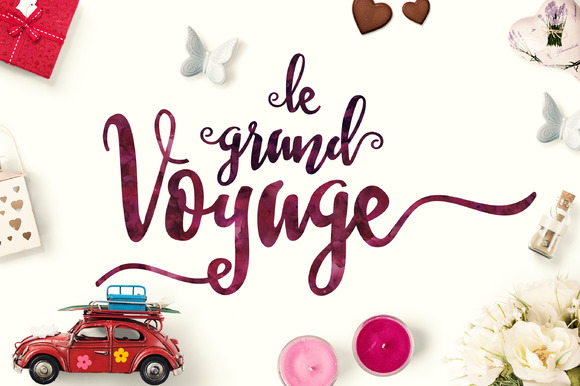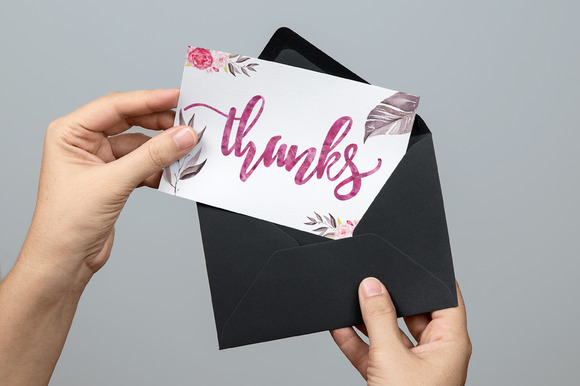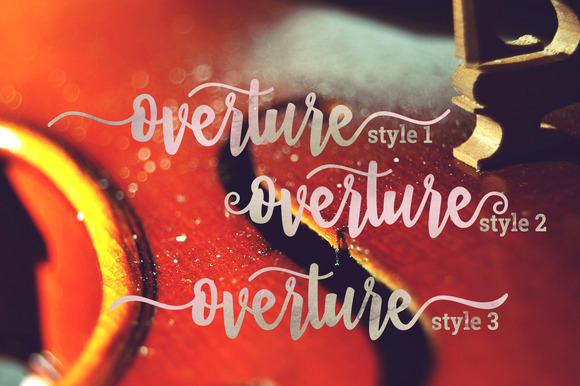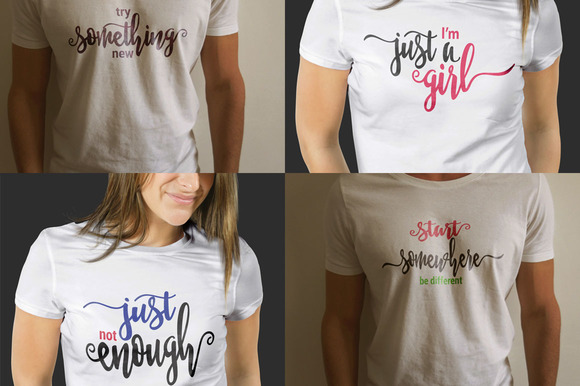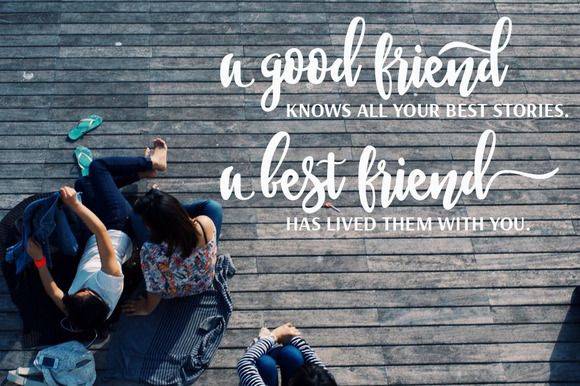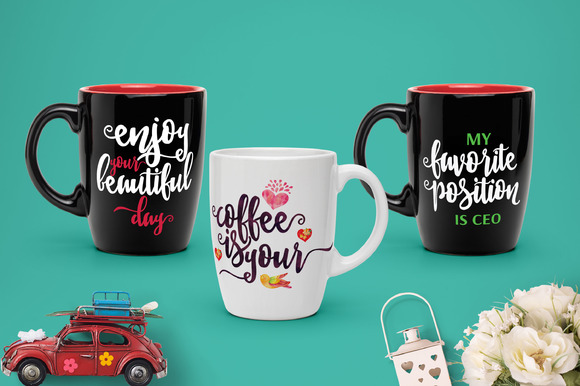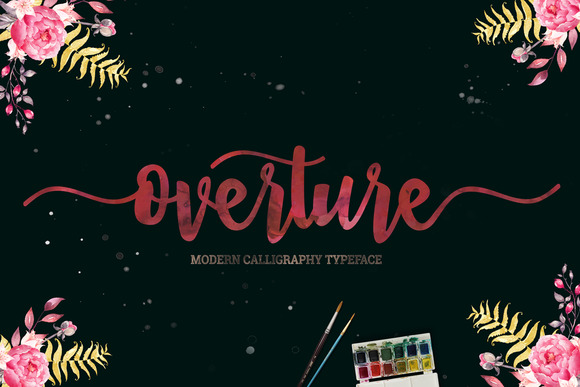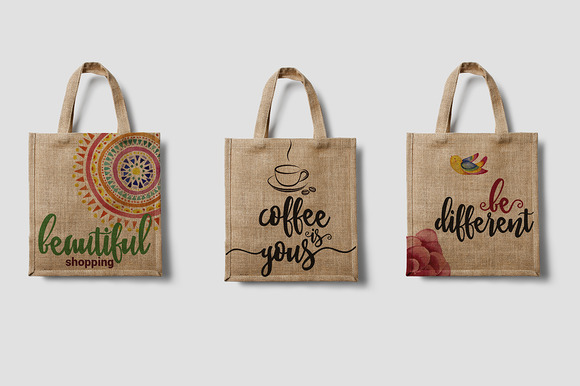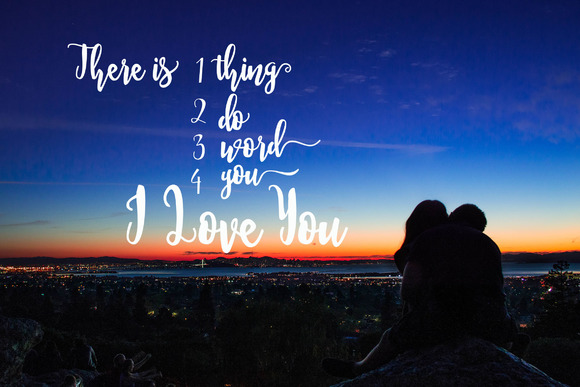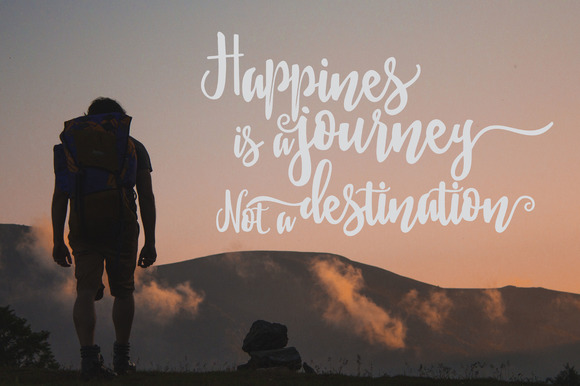
Overture Font
About Overture Font
Overture is a script font that combined brush lettering with traditional handwriting.
It is multipurpose and flexible, make it easy to match with another typeface to create some beautiful project such as wedding invitation, vintage design, greeting card, poster, book cover, illustration, and much more!